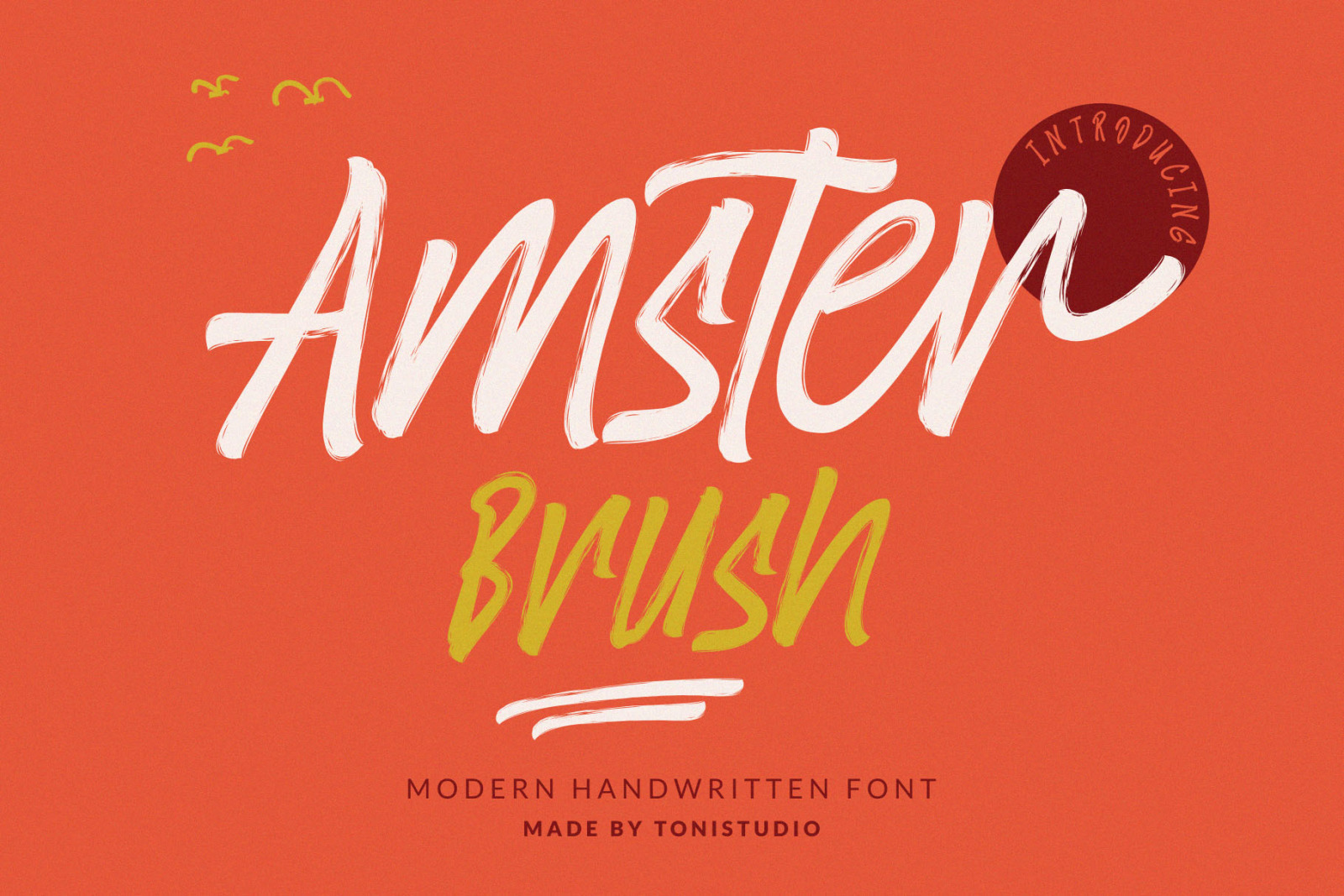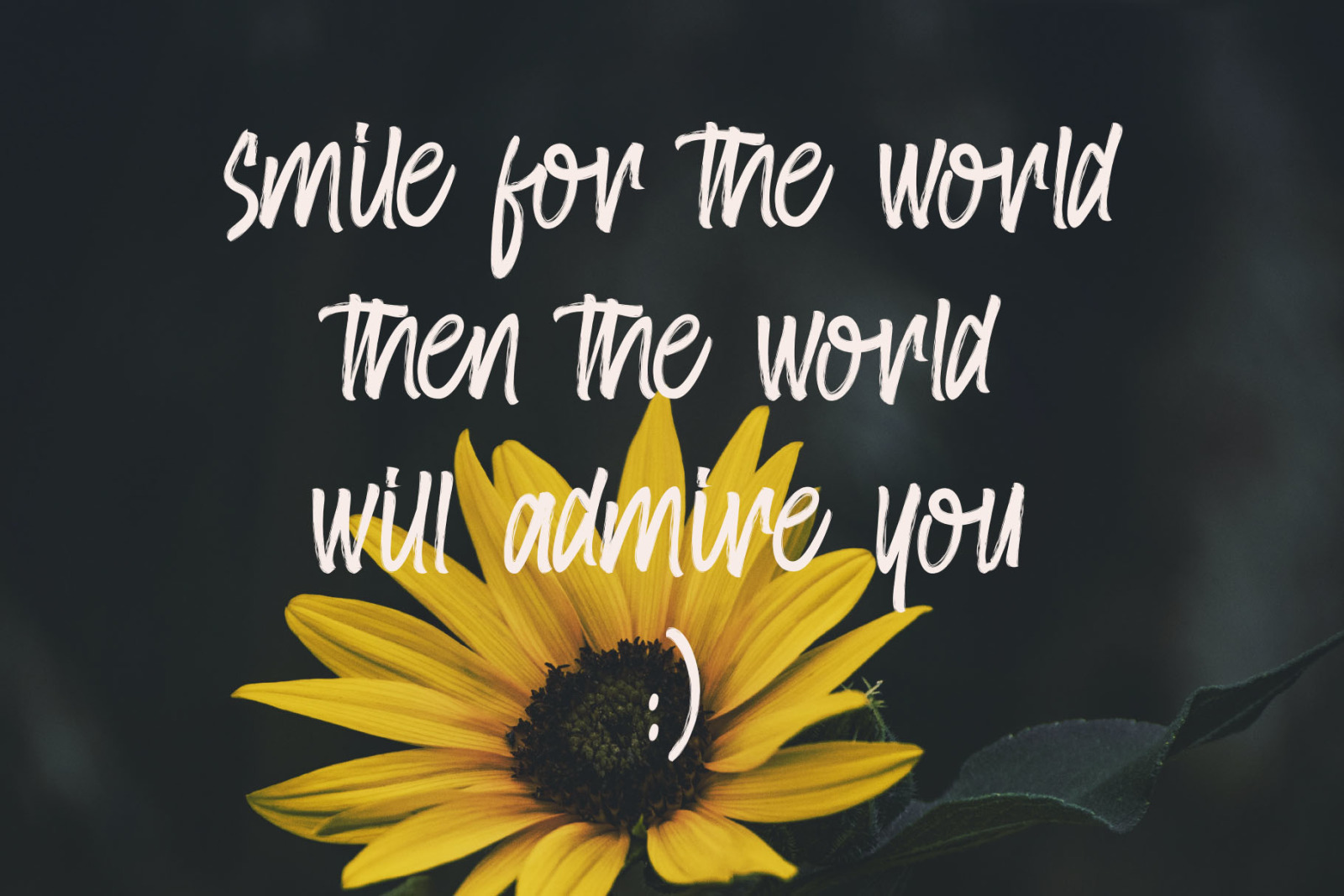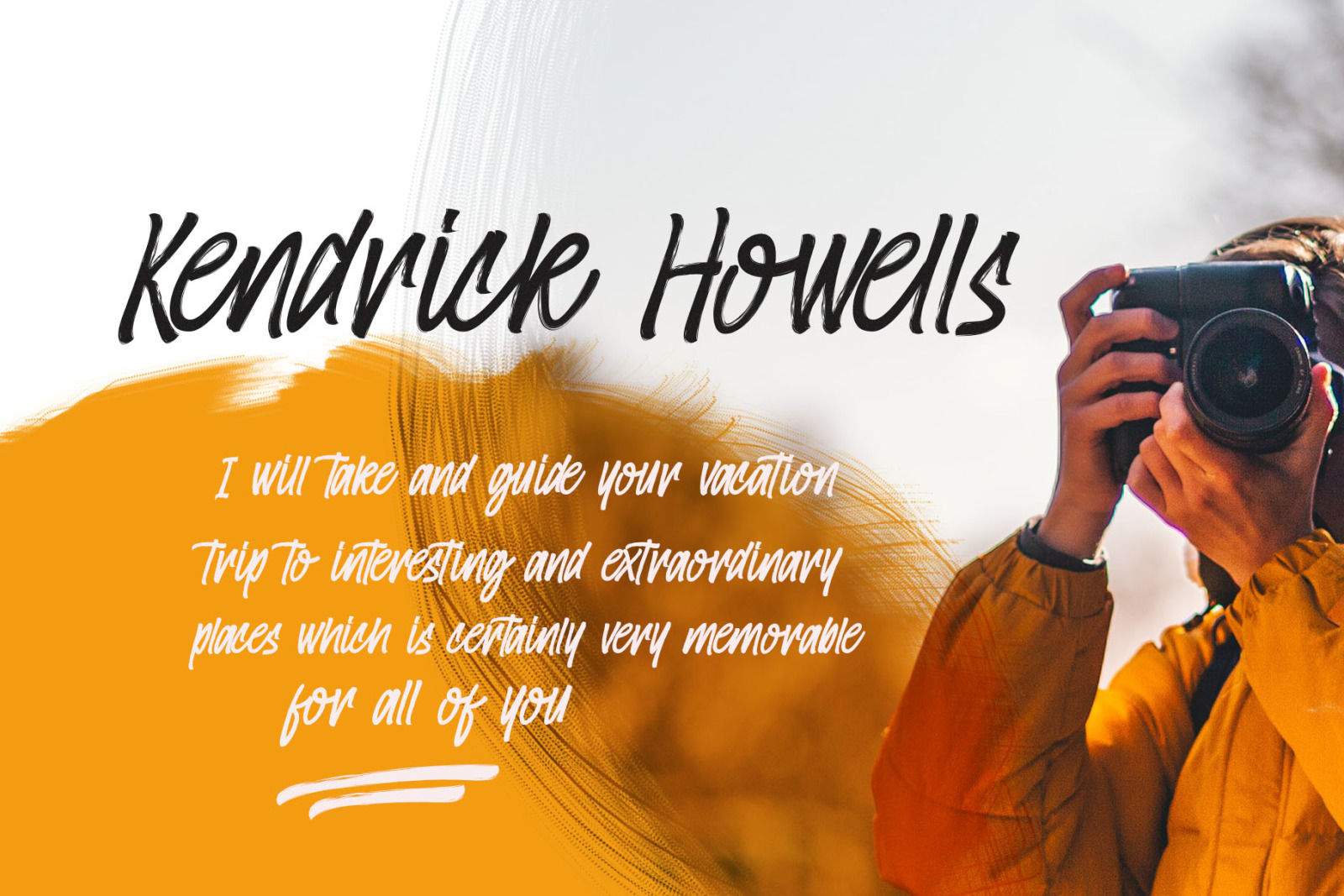
AmsterBrush Font
presents the Amster Brush font. This font is ideal for advertising and packaging in text and display settings. Amster Brush
very careful to ensure that the connection is smooth between all possible combinations of characters.
is a very unique and amazing handwritten script. You can use also for title or signature. This type of font is very suitable to be applied, especially to logos, and various other formal forms such as invitations, labels, logos, magazines, books, greeting/wedding cards, packaging, fashion, make up, stationery, novels, labels or whatever.
_Amster Brush Features_ :
* uppercase,
* lowercase,
* Punctuation,
* multiple languages,